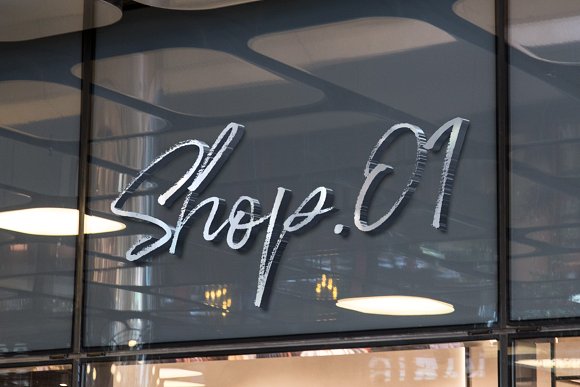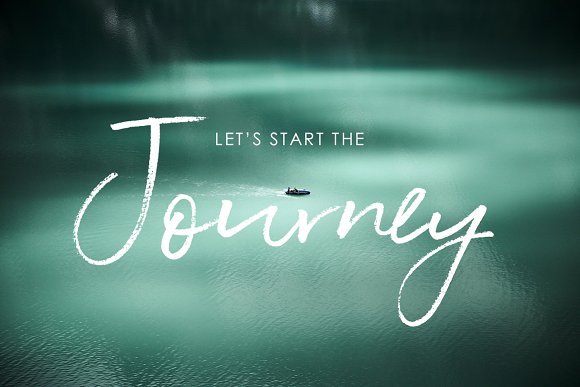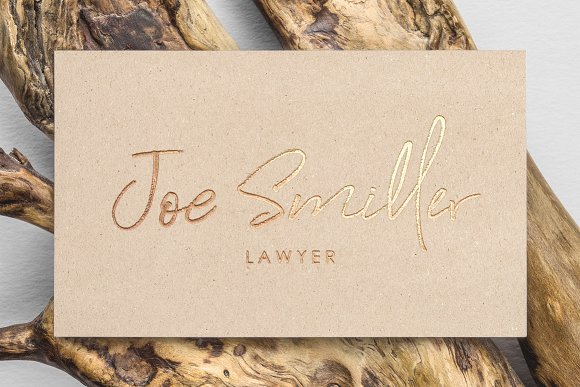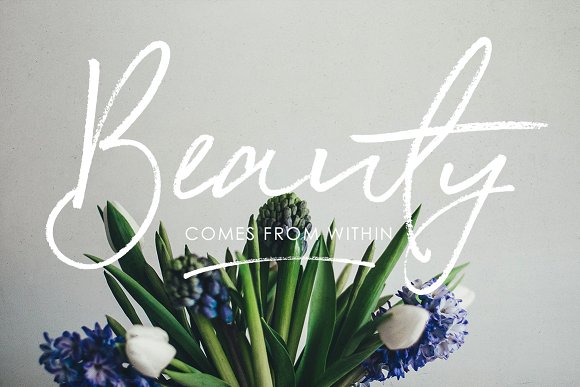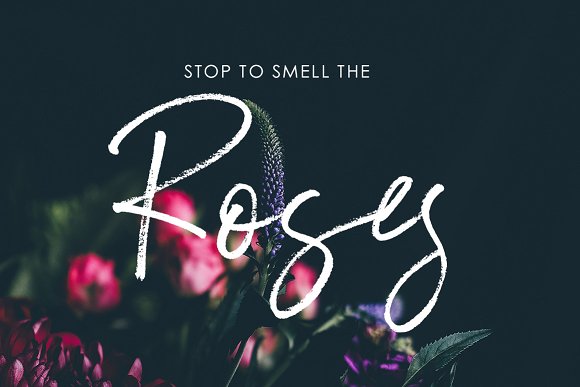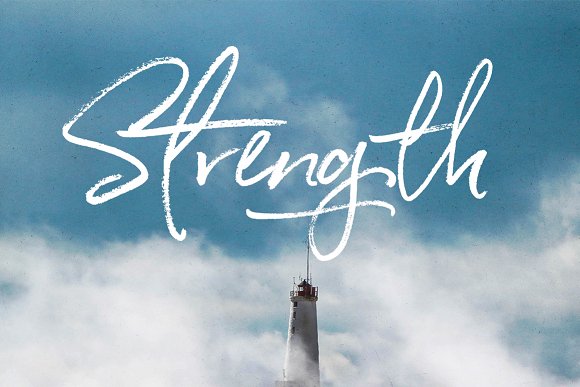
Introduction to Saturday Rock Font Font
Fonts play a crucial role in design, and the Saturday Rock Font font is a typeface that brings both character and versatility to any project. Whether you’re working on a branding project, a website, or a print design, the Saturday Rock Font font offers a unique style that can elevate your work.
Saturday Rock is a beautiful handcrafted font created by Creativeqube.
Key Features of Saturday Rock Font Font
Why Choose Saturday Rock Font Font?
The Saturday Rock Font font is more than just a typeface – it’s a design tool that helps you communicate your message with style and clarity. Its unique character set and versatile design make it suitable for a wide range of applications, from elegant invitations to bold headlines.
With its carefully crafted letterforms and balanced proportions, the Saturday Rock Font font ensures readability and visual appeal across all mediums.
What makes Saturday Rock Font font special?
The Saturday Rock Font font stands out with its unique design, exceptional readability, and versatility across various design applications.